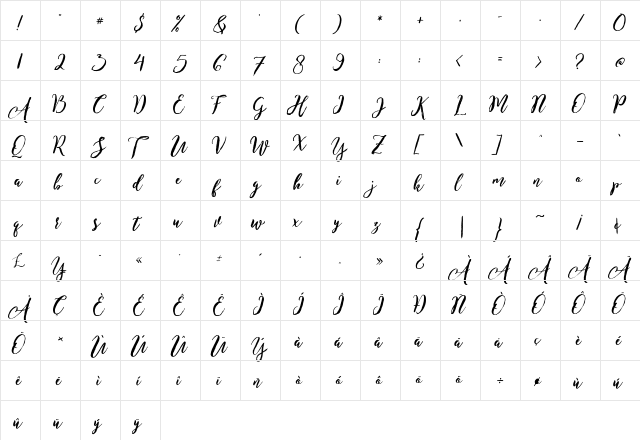
Enchanted Brush Regular
Design Context for Enchanted Brush Typeface
Enchanted Brush flows with the natural rhythm of handwritten lettering, making it ideal for designs that call for warmth and personal expression.
Font Pairing: Combine Enchanted Brush with a simple geometric sans for maximum contrast — the tension between flowing curves and clean structure is a classic typographic pairing.
Pro Tip: Pair Enchanted Brush with a clean sans-serif for supporting text. The contrast between fluid script and geometric structure creates an elegant typographic hierarchy.